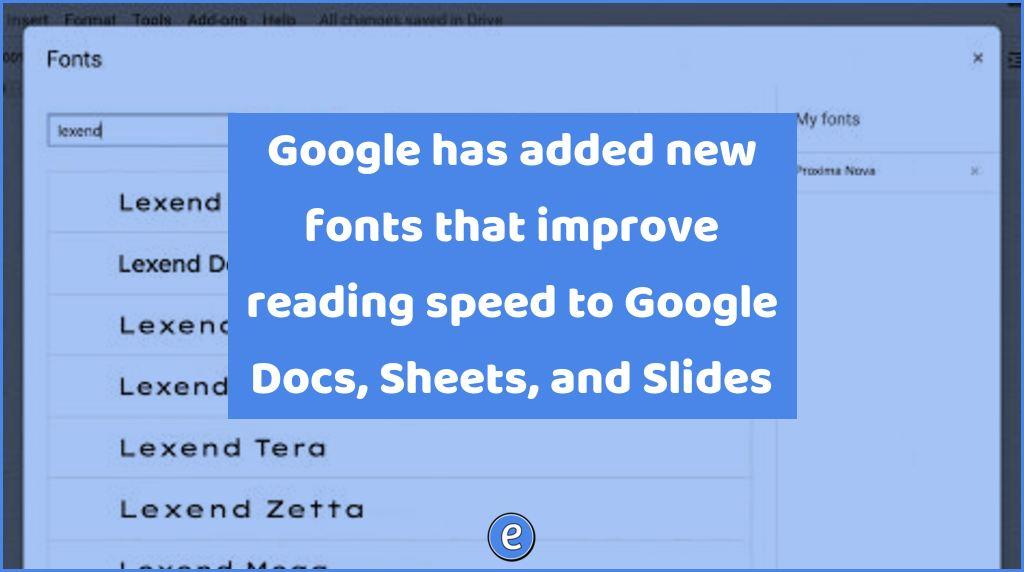
Font For Dyslexia In Google Docs . Myself i am asking to add opendyslexic font to the google. Google supports some system fonts (such as arial, calibri, and courier new) that are recommended for dyslexia. Learn how to choose the best google docs font for dyslexia from eight versions of lexend, a font with wider spacing and extra space between letters. Choose a font from the lexend font family (preloaded in google docs) or any other preferred font. Find out the characteristics of the best fonts and some examples of. Since i cannot install custom fonts into the google docs, sheets, etc. Learn how to choose fonts that are easier to read for students with dyslexia and other learning disorders. They are freely available in. Lexend fonts are designed to reduce visual stress and improve reading performance for dyslexia and struggling readers.
Find out the characteristics of the best fonts and some examples of. Since i cannot install custom fonts into the google docs, sheets, etc. Lexend fonts are designed to reduce visual stress and improve reading performance for dyslexia and struggling readers. They are freely available in. Choose a font from the lexend font family (preloaded in google docs) or any other preferred font. Learn how to choose fonts that are easier to read for students with dyslexia and other learning disorders. Learn how to choose the best google docs font for dyslexia from eight versions of lexend, a font with wider spacing and extra space between letters. Myself i am asking to add opendyslexic font to the google. Google supports some system fonts (such as arial, calibri, and courier new) that are recommended for dyslexia.
Font For Dyslexia In Google Docs Since i cannot install custom fonts into the google docs, sheets, etc. Choose a font from the lexend font family (preloaded in google docs) or any other preferred font. Since i cannot install custom fonts into the google docs, sheets, etc. They are freely available in. Google supports some system fonts (such as arial, calibri, and courier new) that are recommended for dyslexia. Myself i am asking to add opendyslexic font to the google. Learn how to choose fonts that are easier to read for students with dyslexia and other learning disorders. Learn how to choose the best google docs font for dyslexia from eight versions of lexend, a font with wider spacing and extra space between letters. Lexend fonts are designed to reduce visual stress and improve reading performance for dyslexia and struggling readers. Find out the characteristics of the best fonts and some examples of.
Dyslexia Font Download Free Font Font For Dyslexia In Google Docs Learn how to choose fonts that are easier to read for students with dyslexia and other learning disorders. Learn how to choose the best google docs font for dyslexia from eight versions of lexend, a font with wider spacing and extra space between letters. Myself i am asking to add opendyslexic font to the google. Find out the characteristics of. Font For Dyslexia In Google Docs.
Dyslexia friendly fonts PAGE UNDER CONSTRUCTION*** — Achieve Now Font For Dyslexia In Google Docs Lexend fonts are designed to reduce visual stress and improve reading performance for dyslexia and struggling readers. Find out the characteristics of the best fonts and some examples of. Since i cannot install custom fonts into the google docs, sheets, etc. Google supports some system fonts (such as arial, calibri, and courier new) that are recommended for dyslexia. Choose a. Font For Dyslexia In Google Docs.
Open Dyslexic Font and workaround for Google Docs YouTube Font For Dyslexia In Google Docs Myself i am asking to add opendyslexic font to the google. Learn how to choose the best google docs font for dyslexia from eight versions of lexend, a font with wider spacing and extra space between letters. Learn how to choose fonts that are easier to read for students with dyslexia and other learning disorders. Find out the characteristics of. Font For Dyslexia In Google Docs.
best google font for dyslexia Font For Dyslexia In Google Docs Google supports some system fonts (such as arial, calibri, and courier new) that are recommended for dyslexia. Myself i am asking to add opendyslexic font to the google. They are freely available in. Lexend fonts are designed to reduce visual stress and improve reading performance for dyslexia and struggling readers. Learn how to choose the best google docs font for. Font For Dyslexia In Google Docs.
Voice to Text Go Dyslexia Vlog on Voicetyping for Google docs YouTube Font For Dyslexia In Google Docs Myself i am asking to add opendyslexic font to the google. Learn how to choose the best google docs font for dyslexia from eight versions of lexend, a font with wider spacing and extra space between letters. Choose a font from the lexend font family (preloaded in google docs) or any other preferred font. Learn how to choose fonts that. Font For Dyslexia In Google Docs.
dyslexia font chrome extension Font For Dyslexia In Google Docs Find out the characteristics of the best fonts and some examples of. Myself i am asking to add opendyslexic font to the google. Since i cannot install custom fonts into the google docs, sheets, etc. Google supports some system fonts (such as arial, calibri, and courier new) that are recommended for dyslexia. Learn how to choose fonts that are easier. Font For Dyslexia In Google Docs.
Best Google Docs Font for Dyslexia Font For Dyslexia In Google Docs Learn how to choose fonts that are easier to read for students with dyslexia and other learning disorders. Find out the characteristics of the best fonts and some examples of. Lexend fonts are designed to reduce visual stress and improve reading performance for dyslexia and struggling readers. Google supports some system fonts (such as arial, calibri, and courier new) that. Font For Dyslexia In Google Docs.
20+ Best Fonts for Dyslexia (Proven & Fresh Choices) Font For Dyslexia In Google Docs Learn how to choose fonts that are easier to read for students with dyslexia and other learning disorders. They are freely available in. Choose a font from the lexend font family (preloaded in google docs) or any other preferred font. Since i cannot install custom fonts into the google docs, sheets, etc. Myself i am asking to add opendyslexic font. Font For Dyslexia In Google Docs.
dyslexic friendly font google docs Font For Dyslexia In Google Docs Myself i am asking to add opendyslexic font to the google. Google supports some system fonts (such as arial, calibri, and courier new) that are recommended for dyslexia. Find out the characteristics of the best fonts and some examples of. Choose a font from the lexend font family (preloaded in google docs) or any other preferred font. Lexend fonts are. Font For Dyslexia In Google Docs.